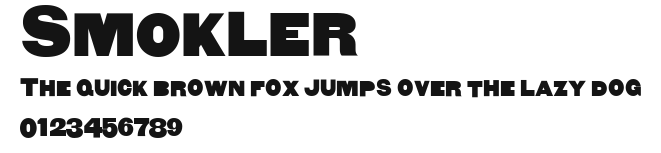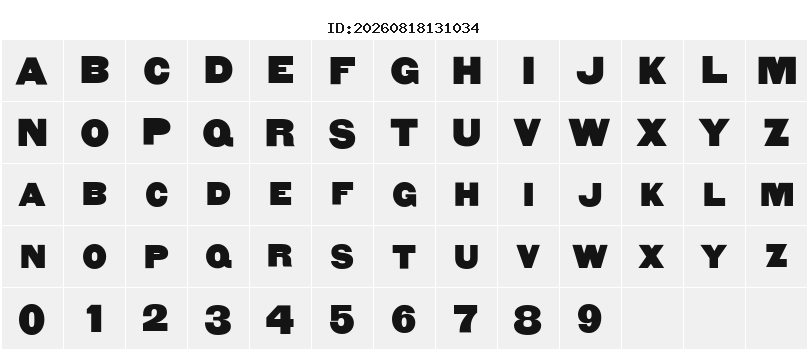
Smokler Preview
• Font Name: Smokler
• Full Font Name: SmoklerBoldTitleOL
• PostScript Name: SmoklerBoldTitleOL
About Smokler.ttf
Smokler.ttf is a modern, elegant sans-serif font designed for ultimate readability and visual harmony. Perfect for branding, headlines, web design, and print materials.